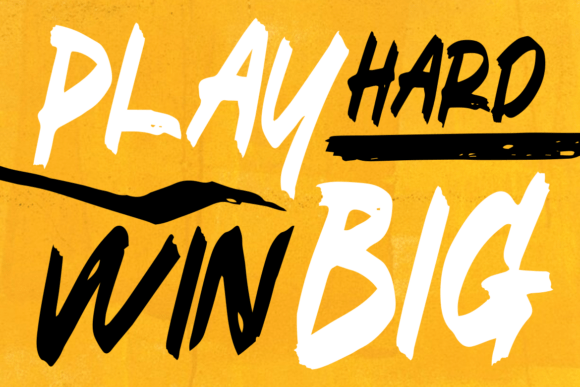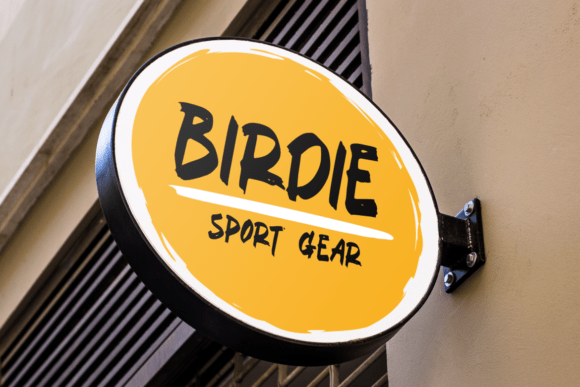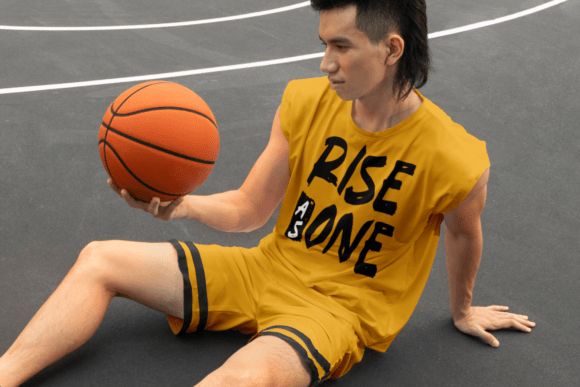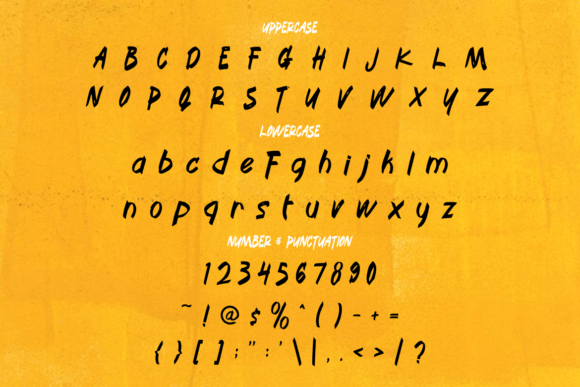
Introducing Blaze Brush – The Ultimate Brush Font for Bold Designs
Are you looking for a font that can add a bold and energetic touch to your designs? Look no further than Blaze Brush, a stunning brush font that is sure to make a strong visual impact. With its rough, hand-painted strokes and rugged texture, this font exudes power and intensity, making it perfect for designs that demand attention.
The Urban, Sporty, and Dynamic Feel of Blaze Brush
Blaze Brush features a unique brush-style lettering that gives off an urban, sporty, and dynamic feel. The font’s composition, showcased on a vibrant yellow background with bold black brush strokes, adds a grunge aesthetic that is sure to grab the attention of your audience. The uneven, rough-edged characters convey movement and excitement, making it an ideal choice for sports branding, music posters, apparel designs, and action-packed headlines.
Blaze Brush is an excellent choice for designers and crafters looking to add a bold and rebellious touch to their projects. Whether you’re creating a striking logo, powerful marketing materials, edgy packaging, or impactful social media graphics, this font will elevate your visuals with its raw, handcrafted appeal. With its high-energy brush strokes and urban street-art influence, Blaze Brush is sure to take your designs to the next level.
Key Features of Blaze Brush
- Rough, hand-painted strokes: Giving the font a rugged texture that exudes power and intensity.
- Brush-style lettering: Providing an urban, sporty, and dynamic feel.
- Uneven, rough-edged characters: Conveying movement and excitement.
- Grunge aesthetic: Adding a bold and edgy touch to your designs.
- High-energy brush strokes: Infusing your designs with a sense of energy and dynamism.
- Urban street-art influence: Giving your designs a bold and rebellious edge.
Endless Design Possibilities with Blaze Brush
Blaze Brush is a versatile font that can be used for a wide range of design projects. Here are just a few ideas to get you started:
- Sports branding: Use Blaze Brush to create bold and dynamic logos, jerseys, and marketing materials for sports teams and events.
- Music posters: Add a bold and edgy touch to your music posters and flyers with Blaze Brush.
- Apparel designs: Use Blaze Brush to create eye-catching and energetic designs for t-shirts, hoodies, and other apparel.
- Marketing materials: Use Blaze Brush to create bold and attention-grabbing marketing materials, such as brochures, flyers, and posters.
- Social media graphics: Add a bold and dynamic touch to your social media graphics with Blaze Brush.
In conclusion, Blaze Brush is a bold and energetic brush font that is sure to make a strong visual impact. With its rough, hand-painted strokes, brush-style lettering, and grunge aesthetic, this font is perfect for designs that demand attention. Whether you’re a designer or crafter looking to add a bold and rebellious touch to your projects, Blaze Brush is an excellent choice. So why wait? Download Blaze Brush today and take your designs to the next level!